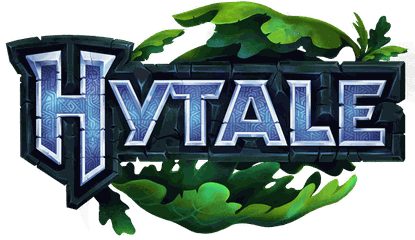
• Is a Hytale logo, not is the original font (hytale wiki page), This is the link of the wiki (hytale original font)
Это логотип Hytale, а не оригинальный шрифт (страница вики Hytale). Вот ссылка на вики (оригинальный шрифт Hytale)
This is my model